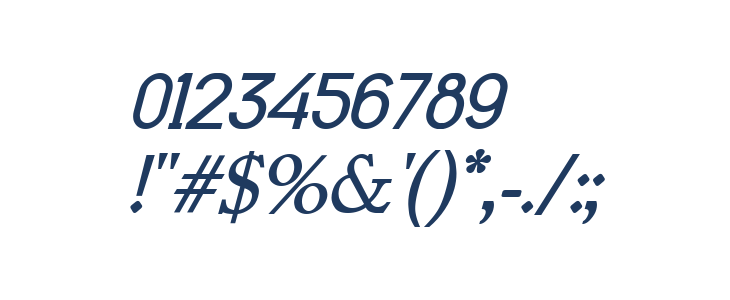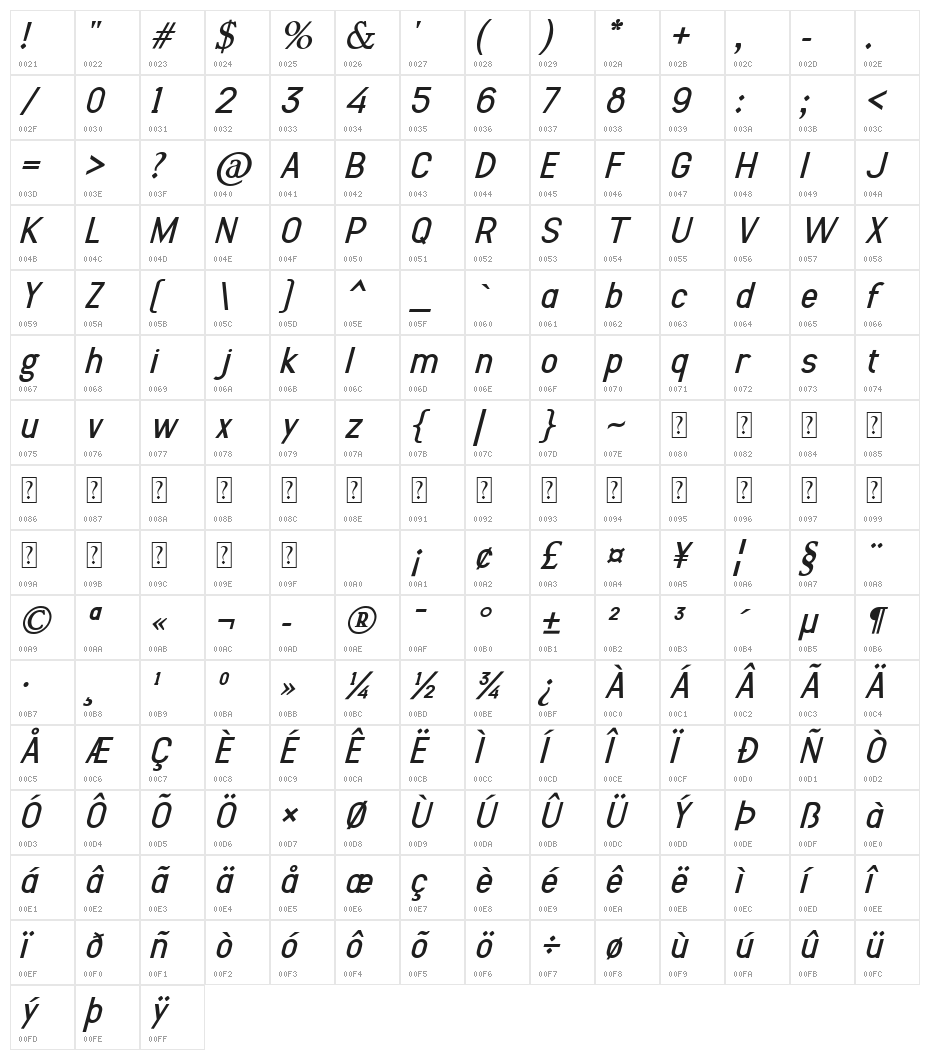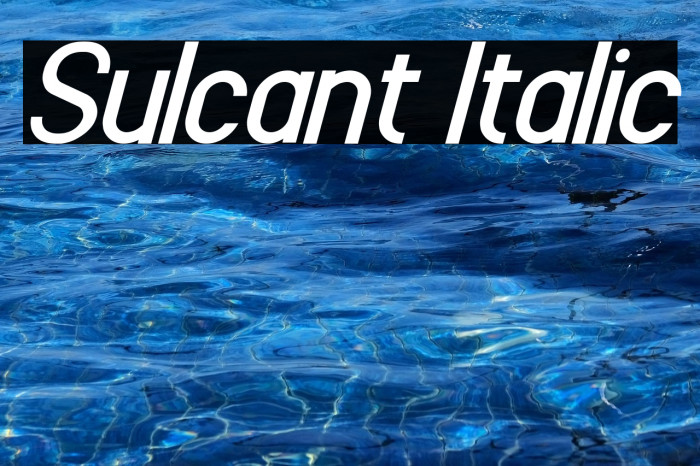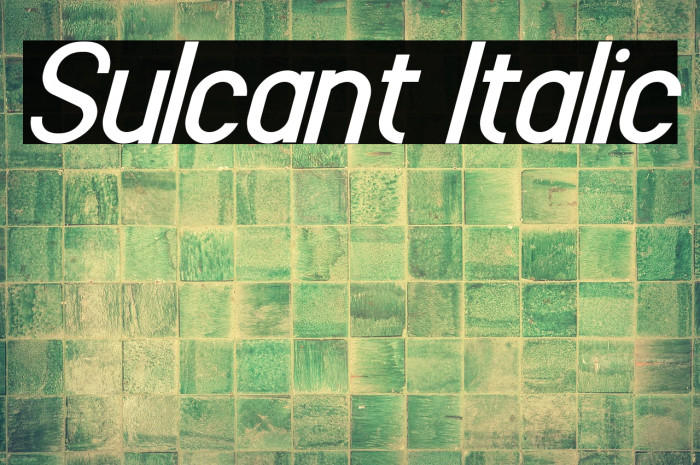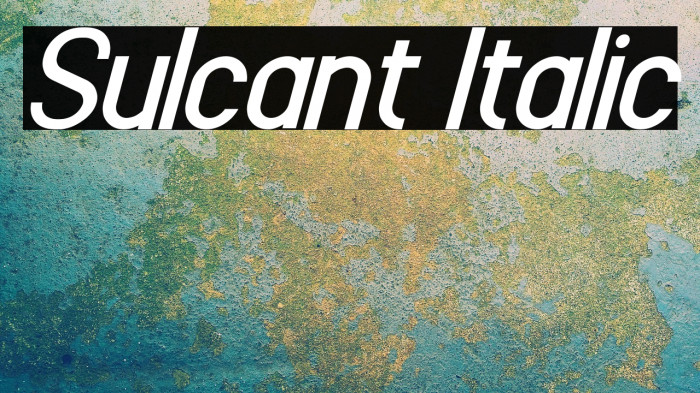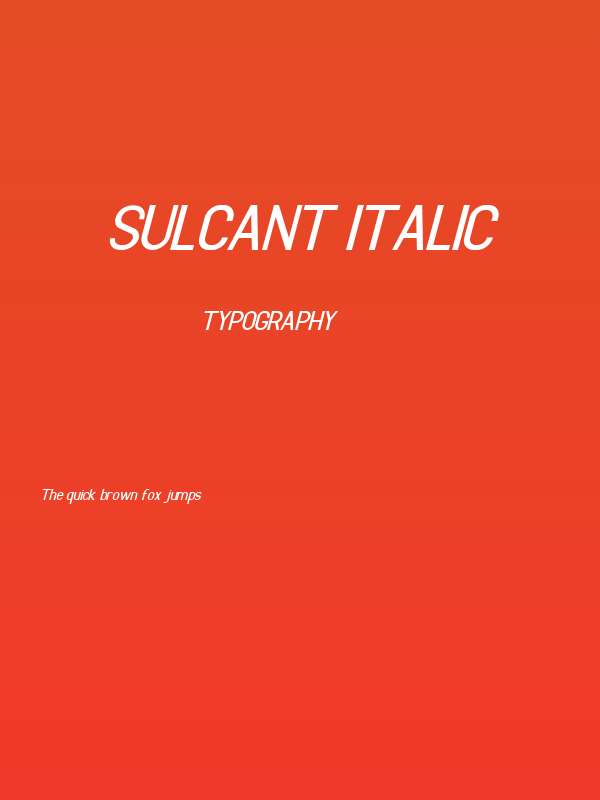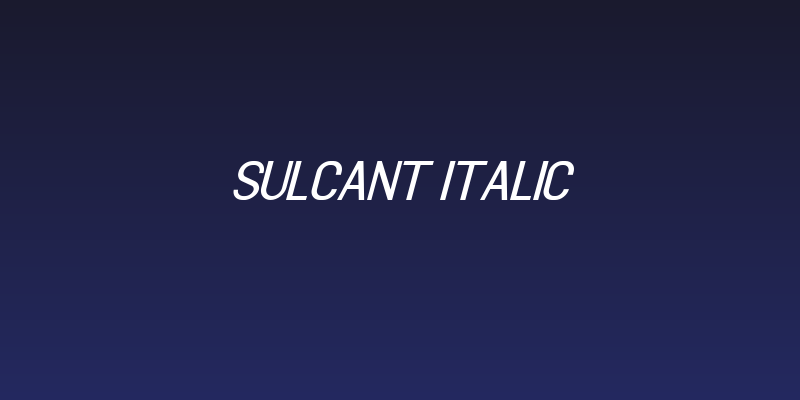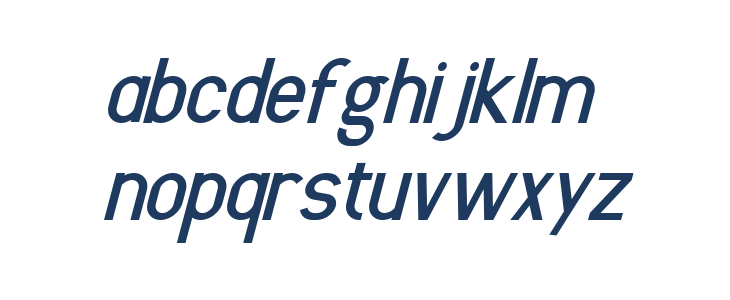
Sulcant Italic Font
Sulcant Italic Description
This font features a sleek, italicized style with a modern and dynamic appearance. The characters are slightly slanted, giving a sense of motion and fluidity. The strokes are consistent in weight, providing a uniform look across all letters and numbers. The uppercase and lowercase letters are well-proportioned, with a slight emphasis on the vertical strokes. The numerals are clear and easy to read, maintaining the same italicized angle as the letters. Special characters are designed to complement the overall style, ensuring a cohesive look in any text. This font is ideal for projects that require a contemporary and stylish touch.
| Use Case | Headlines, Logos, Advertising |
| Proposed Projects | Ideal for branding, advertising, and editorial design projects that require a modern and stylish appearance. |